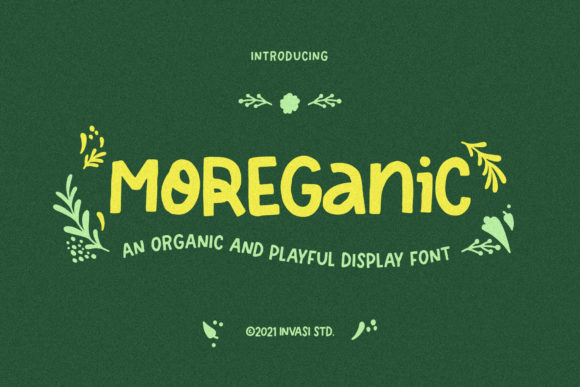
Dive into the world of Moreganic, a display font family with a captivating hand-drawn style and a dash of modern flair. Rooted in the beauty of nature and healthy living, Moreganic is designed to inspire creativity and add a touch of whimsy to your projects.
With Moreganic, you'll have a palette of alternates at your fingertips, allowing you to effortlessly add depth and uniqueness to your designs. Whether you're crafting logos, branding elements, or eye-catching packaging, Moreganic's organic and playful spirit will elevate your projects to new heights.
Imagine the allure of a fast food logo adorned with Moreganic's charming characters. Its playful curves and lively strokes will evoke a sense of freshness and vitality, inviting customers to indulge in your culinary creations. Moreganic's unique personality is sure to leave a lasting impression, making your brand unforgettable.
Moreganic's versatility extends beyond logos and branding. Bring your packaging designs to life with Moreganic's vibrant energy. Create packaging that tells a story, capturing the essence of your brand and leaving a lasting impression on your customers. From playful patterns to captivating illustrations, Moreganic will transform your packaging into a work of art.
Unleash your creativity with Moreganic, the font that embodies the perfect balance between nature's charm and modern elegance. With Moreganic, your designs will flourish, leaving an imprint of joy and inspiration wherever they go. Embrace the Moreganic experience today and embark on a journey of creativity like never before!